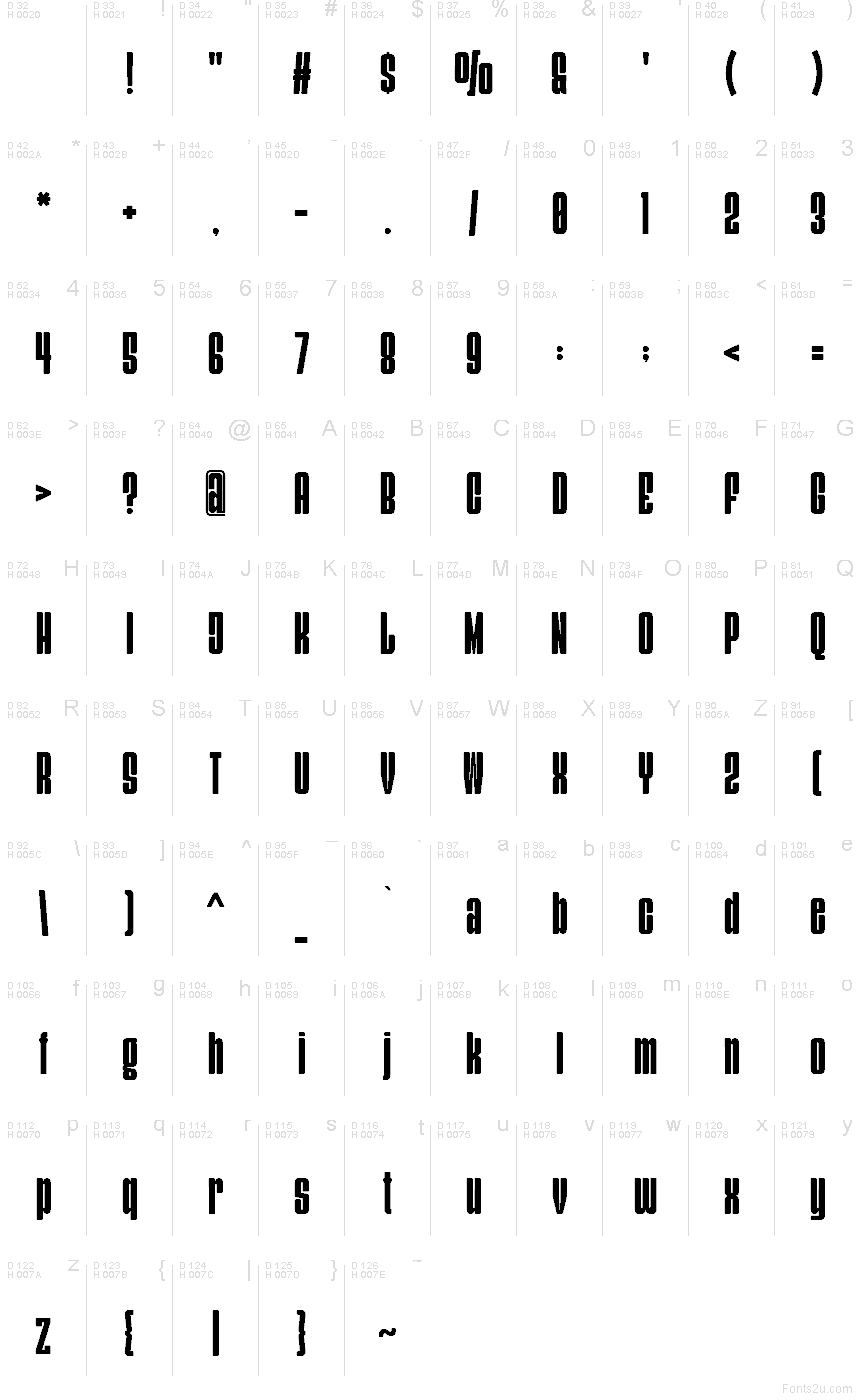
Higed Personal Use Only Regular
Higed, designed by Ari Juanda, is a free retro display font with towering, dramatically condensed letterforms. Thick vertical strokes create a dense, poster-like silhouette. Rounded inner corners soften the blocky build.
A concert poster is its most convincing setting, where the narrow letters can form a forceful title across limited width. The same compressed construction suits album covers, club signage, and merchandise aimed at industrial or underground music scenes. Repeated upright columns make the lettering resemble a row of speaker stacks or architectural panels, linking the type directly to bold graphic imagery.